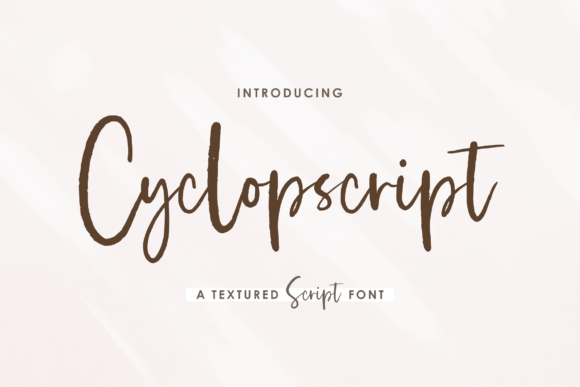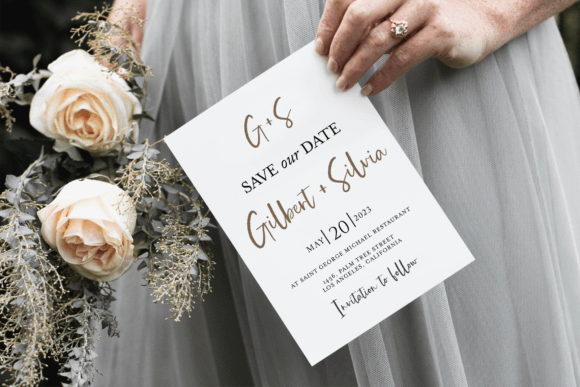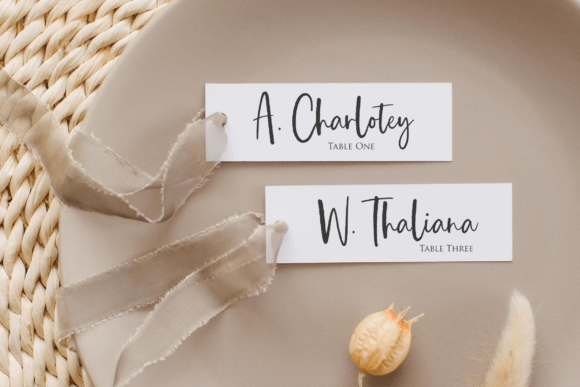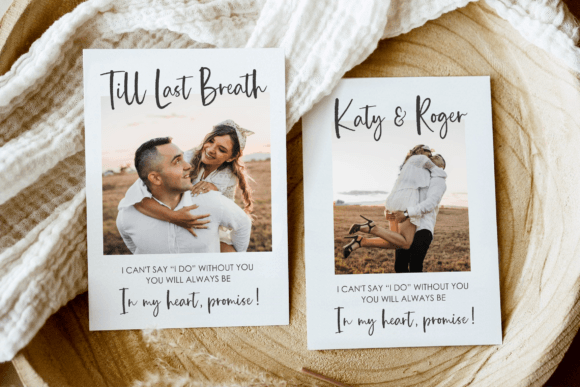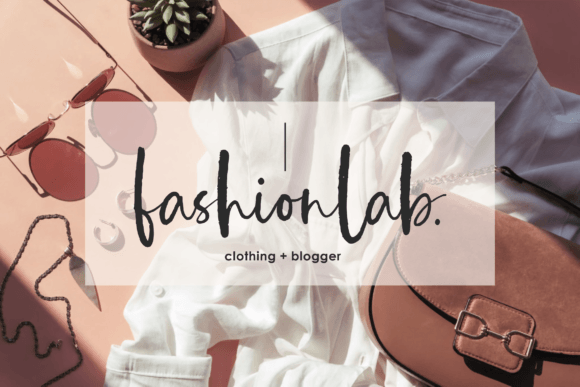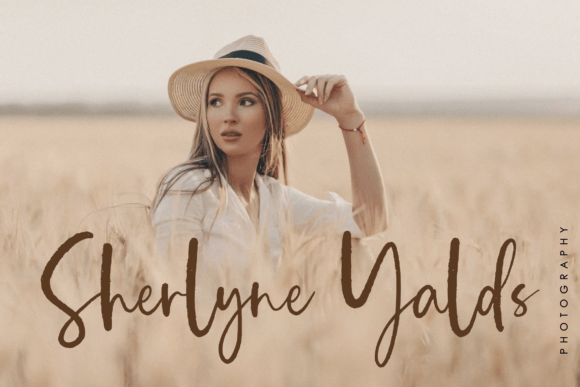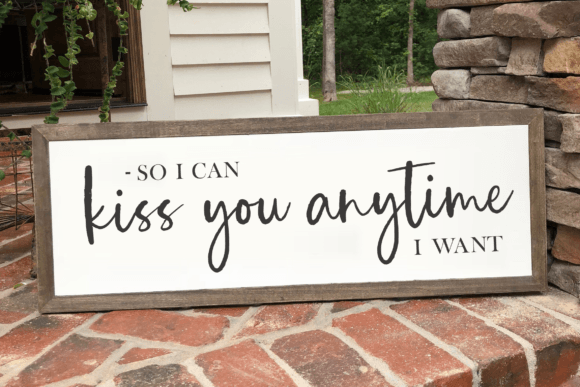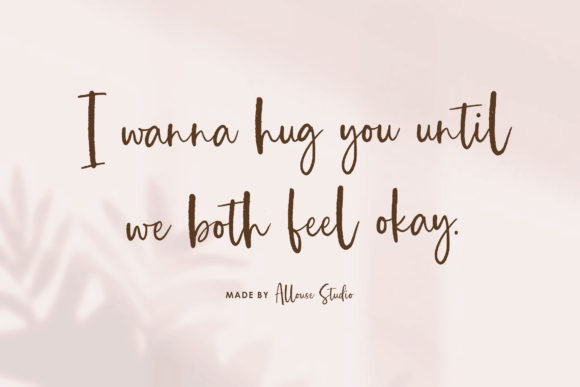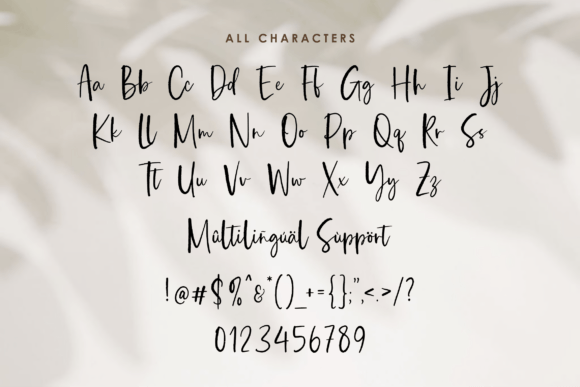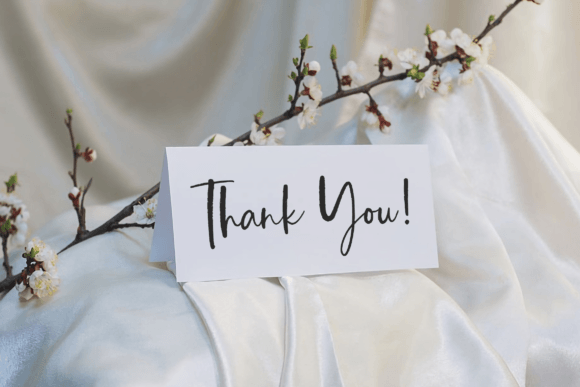
Cyclopscript Font
About Cyclopscript Font
Cyclopscript is a textured script font.
Cyclopscript is perfect for product packaging, branding project, magazines, social media, weddings, or just used to express words above the background.